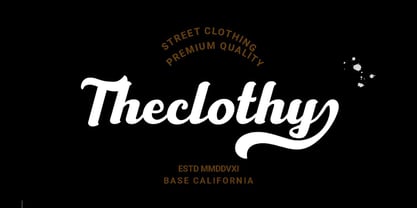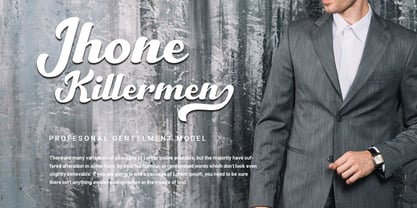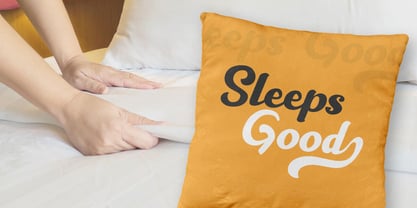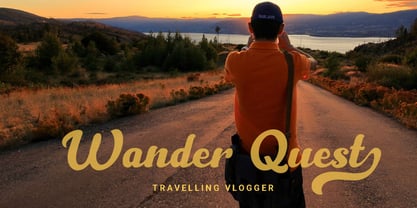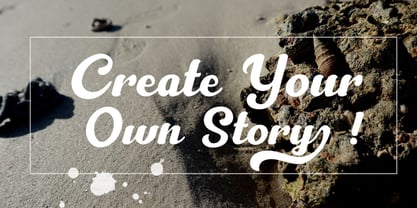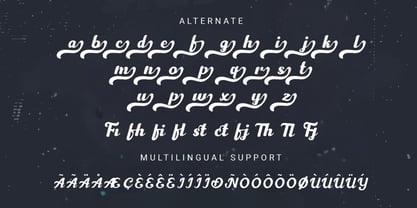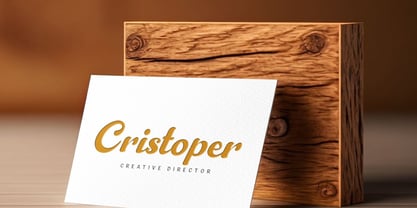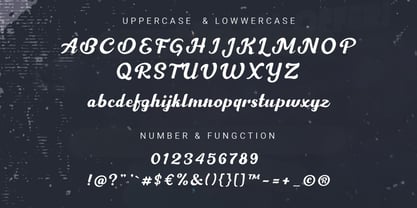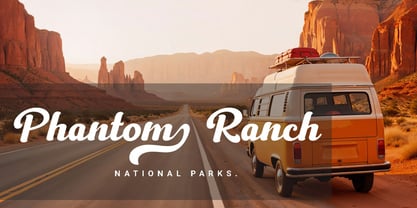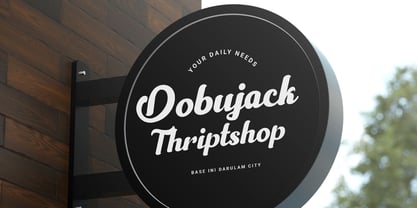
Barico
Die Schriftfamilie Barico wurde von entworfen und von RHD Creative veröffentlicht. Barico enthält 1 Stile. Mehr über diese Familie
Hello everyone, I would like to introduce Barico - Modern Skript Font.
Barico - Modern Skript Font with Handmade character. Starla Air - Stylish Signature Font , Modern font to make your design project stand out! Barico is a perfectly choice for any creative endeavor, creating, modern, chic, lifestyle design such as logotype, title, cover, branding, invitations, wedding designs, display and magazine, social media posts, advertisements, printed quotes, product packaging, corporate brand, product designs, labels, photography, watermarks, special events and any other project with modern touch.